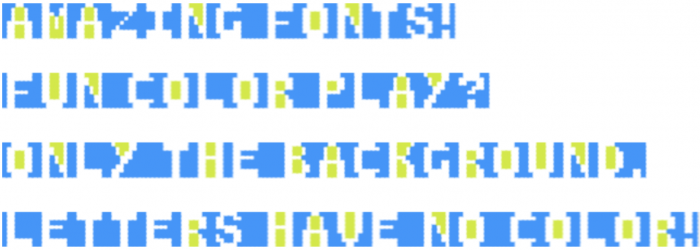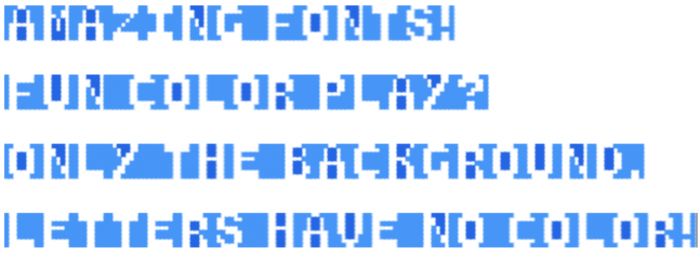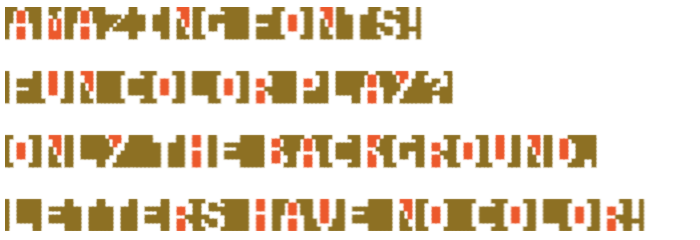
As for this font, I just made a simple 2-tone 8x8 pixel monospaced design that could eventually work without any spacing. Only the backgrounds are using colors, while the letters themselves remain empty. Thoughts and feedbacks are always welcome!
I couldn't decide on the color for the counters. Monochrome or duotone?
duotone
Another duotone option.
ew no
I'm confused